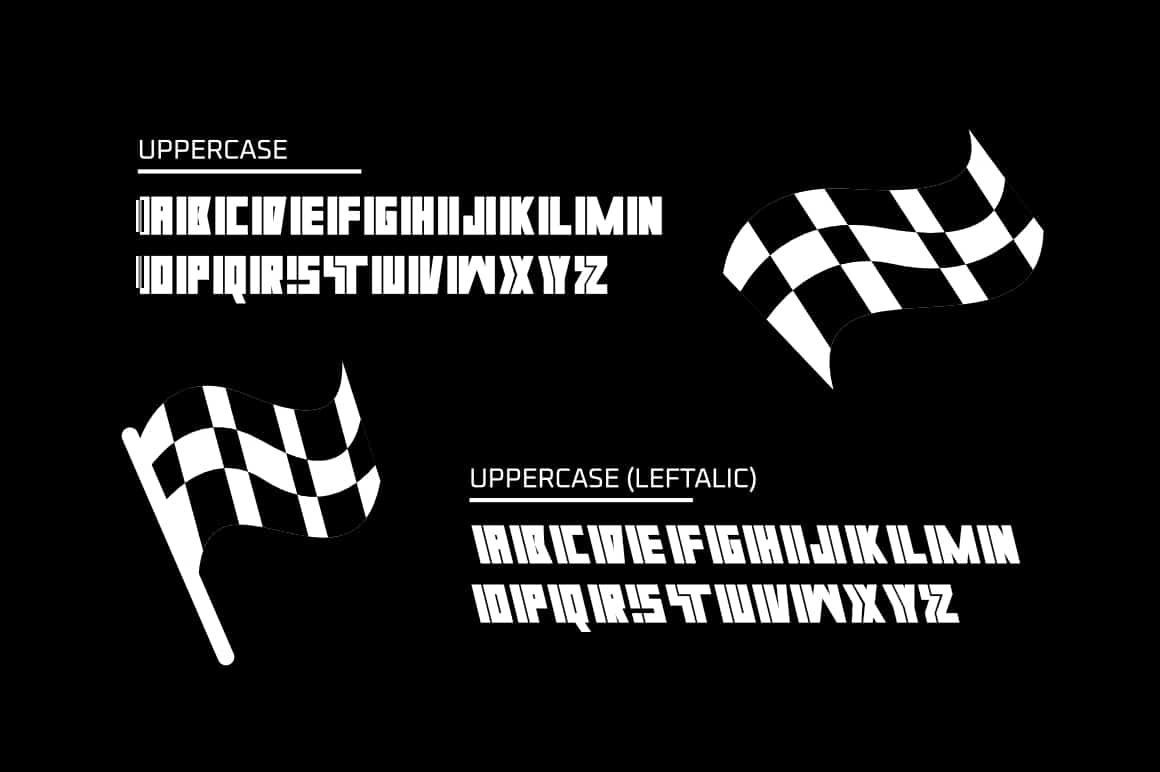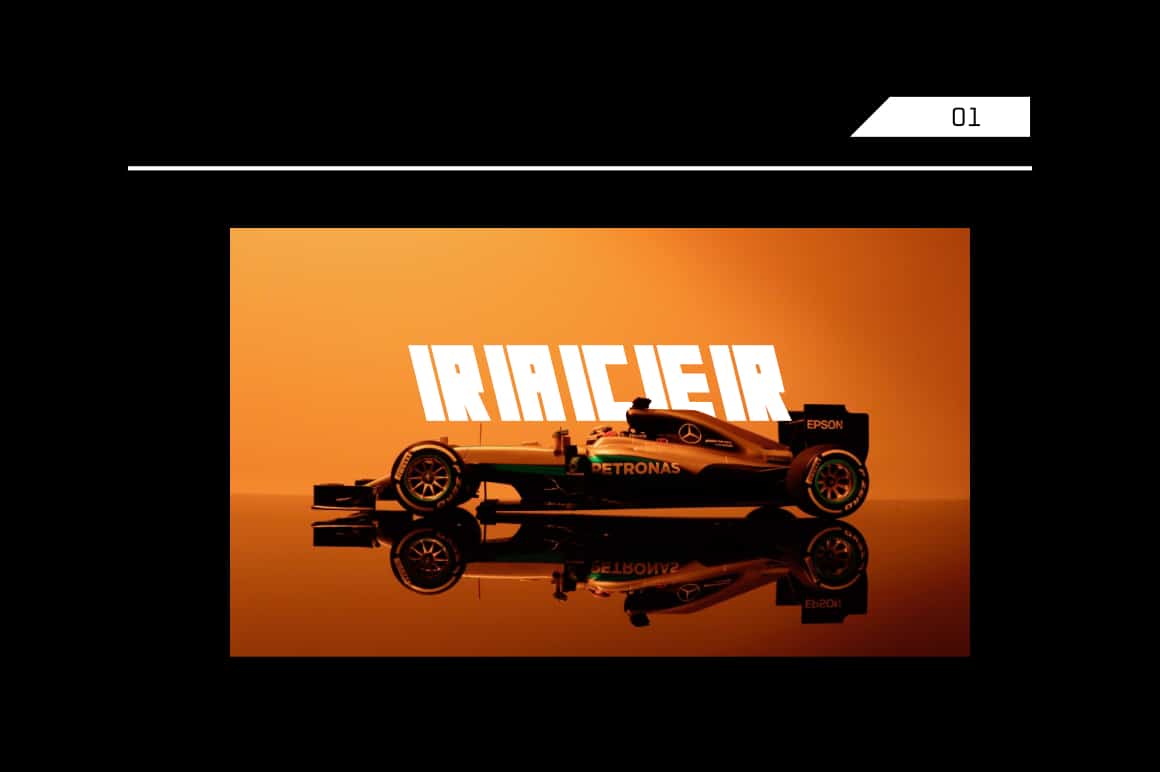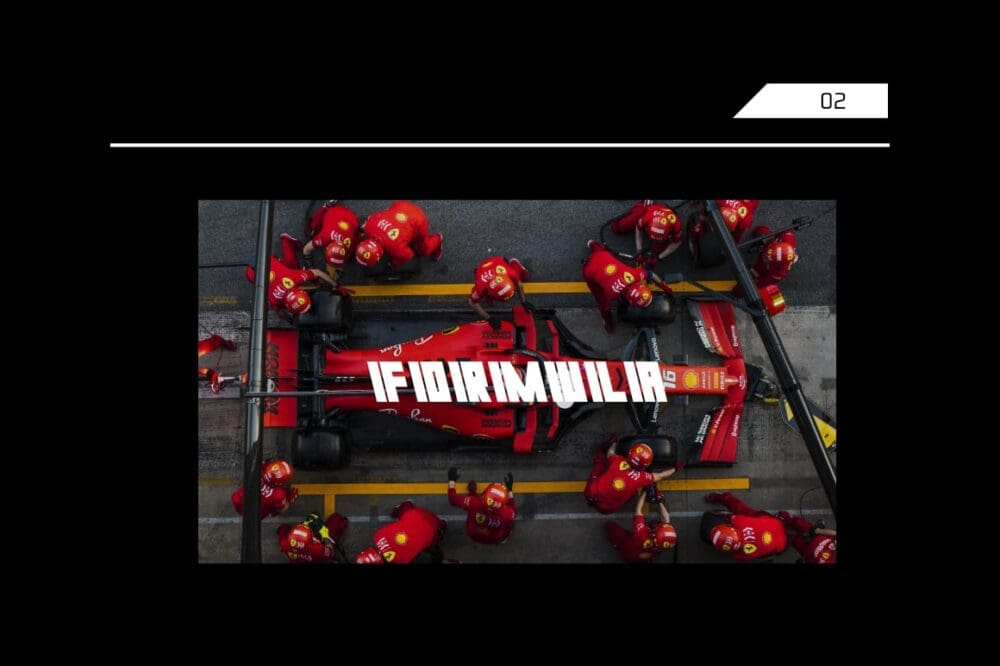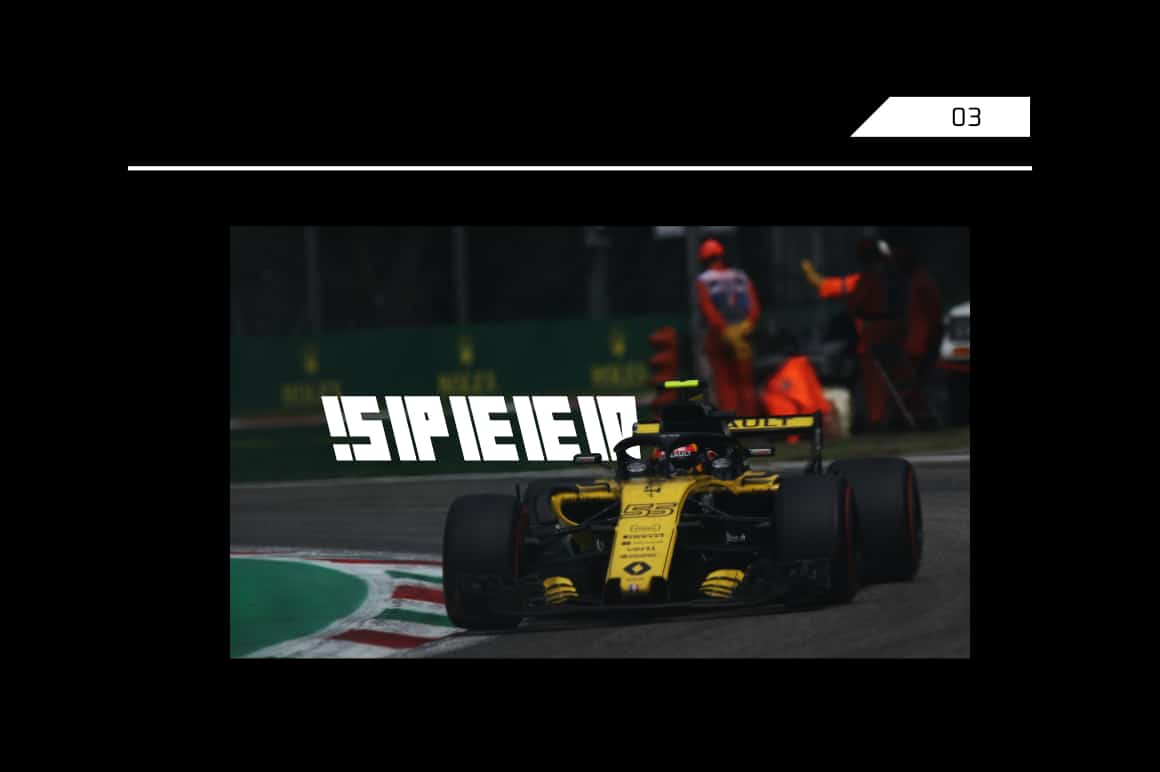
Fuixg Display Font
Fuixg is a cool, bold, and futuristic Display Font. This font is ideal for writing web designs, business cards, or pretty much anything else that requires a unique touch.